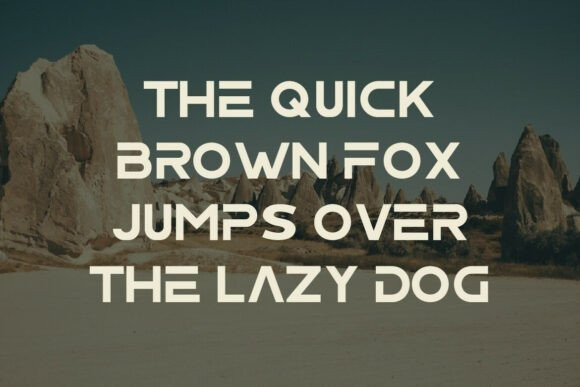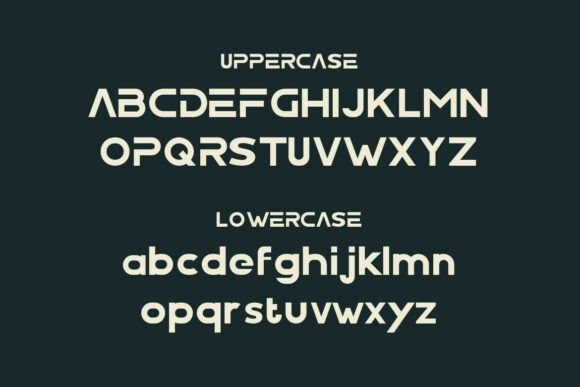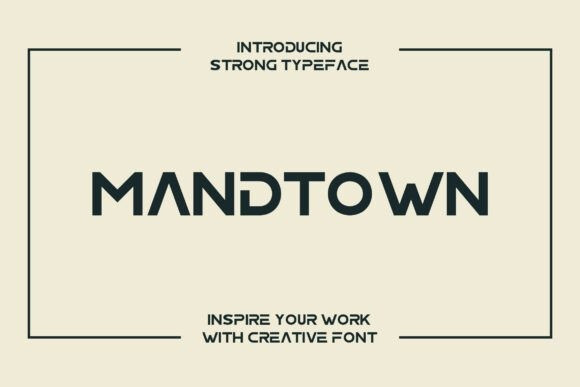
Mandtown Font
Mandtown Font is a confident sans serif font that blends urban style with modern simplicity. With sturdy letterforms, tight spacing, and a clean structure, Mandtown is designed to stand out — perfect for branding, streetwear designs, posters, album covers, editorial layouts, and digital media that need a bold, contemporary voice.